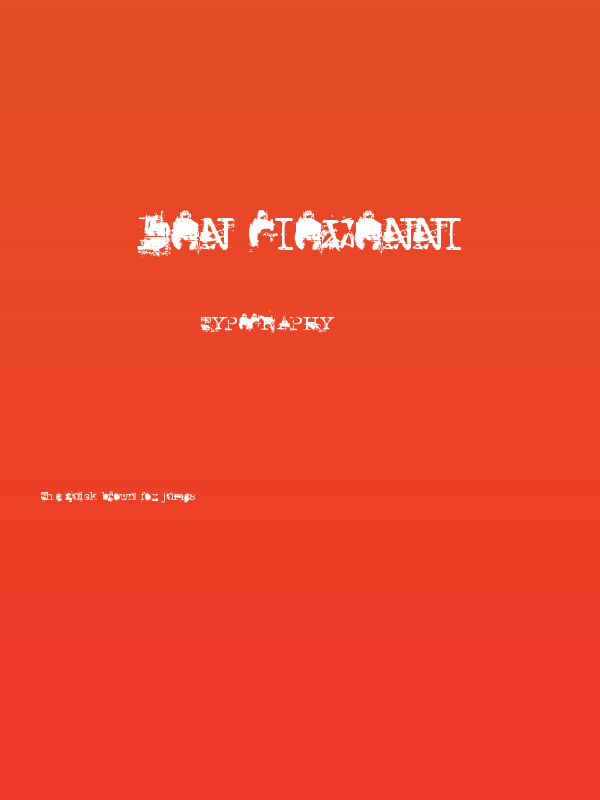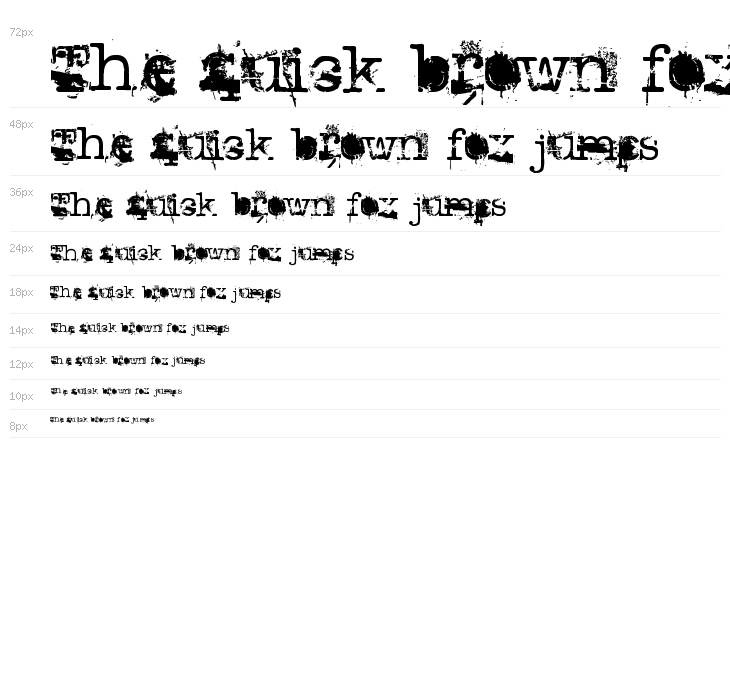
Don Giovonni Font
Don Giovonni Description
This font features a distressed, grunge style with a textured appearance that mimics wear and tear. The characters are bold and heavily stylized, with irregular edges and a rough, weathered look. The uppercase and lowercase letters maintain a consistent design, while the numbers and special characters follow the same distressed theme. This font's unique aesthetic makes it stand out, offering a vintage, industrial feel that is both eye-catching and distinctive.
Overall StyleVintage
Proposed ProjectsIdeal for projects requiring a vintage or industrial look, such as posters, album covers, or branding for edgy or alternative products.